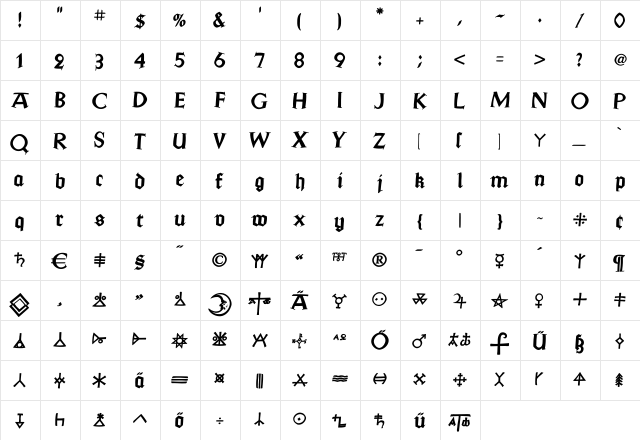
JessicaPlus Regular
Design Context for JessicaPlus Typeface
JessicaPlus is a composed and adaptable typeface that performs quietly and consistently across a wide range of design contexts.